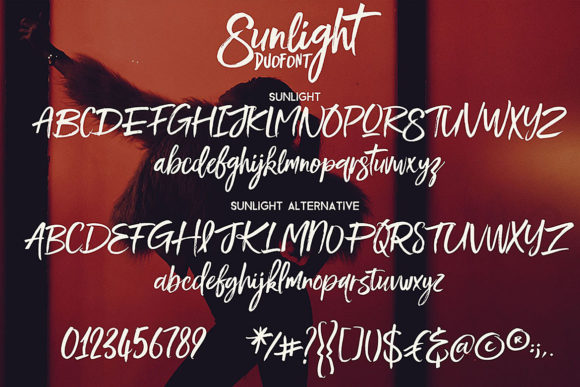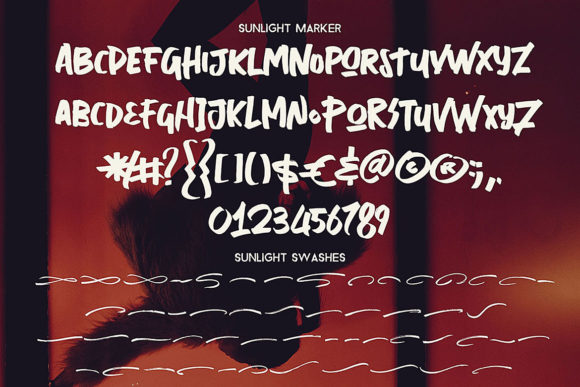
Sunlight Duo Font
db-ku.com - Script & Handwritten -- The Sunlight is a cool handwritten brush duo. It includes 3 variations with swashes which are perfect for grunge and artistic projects.